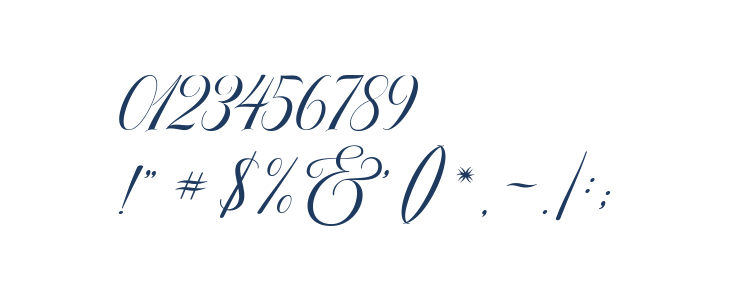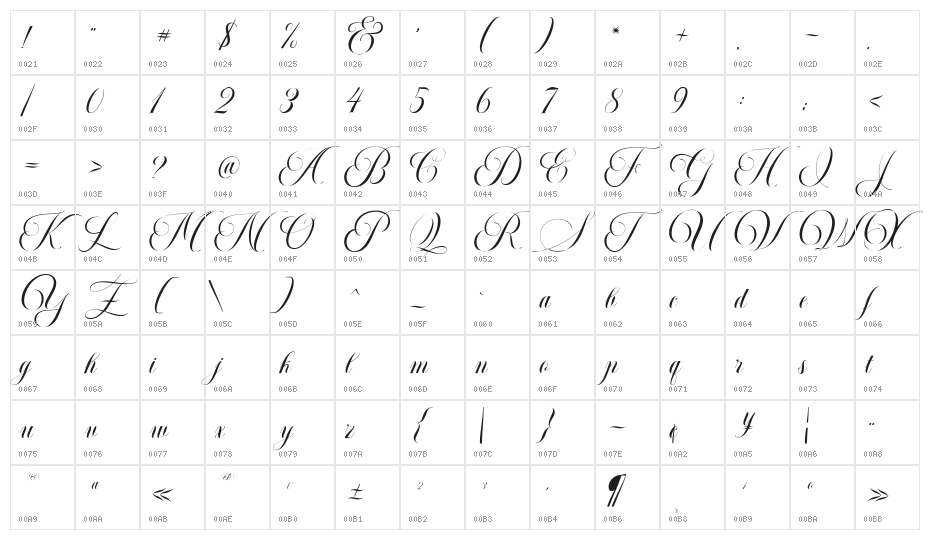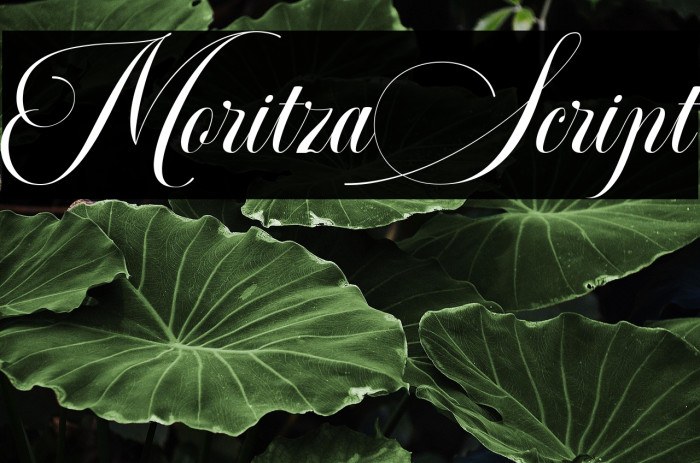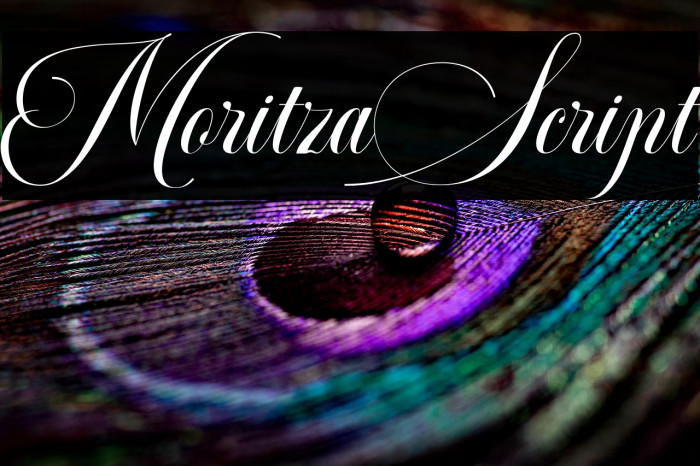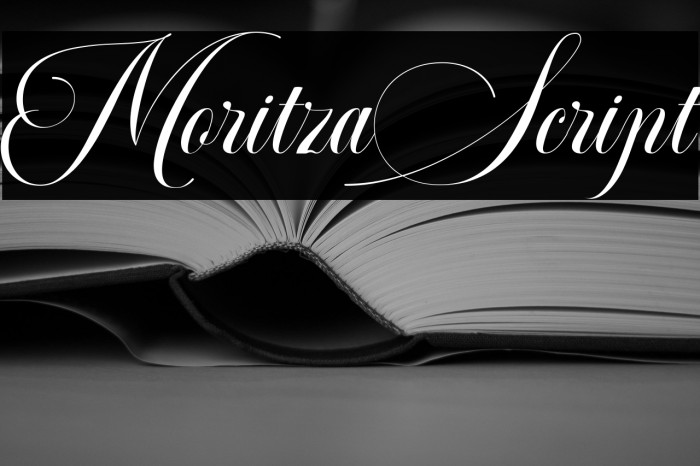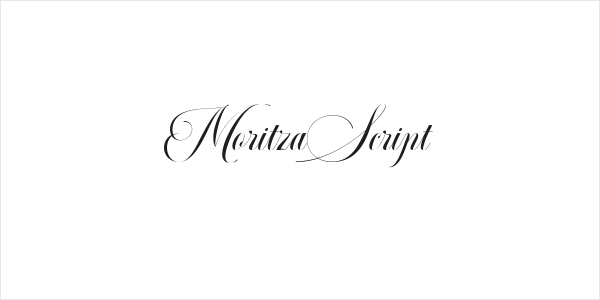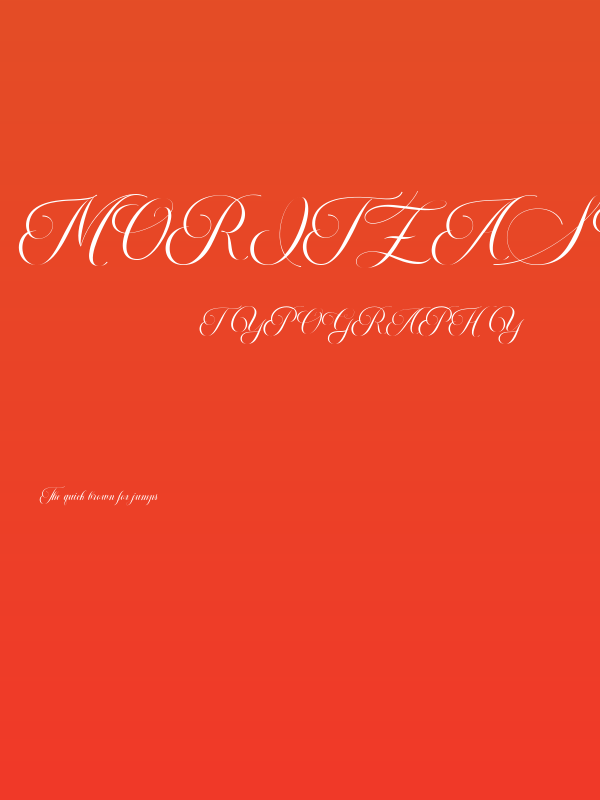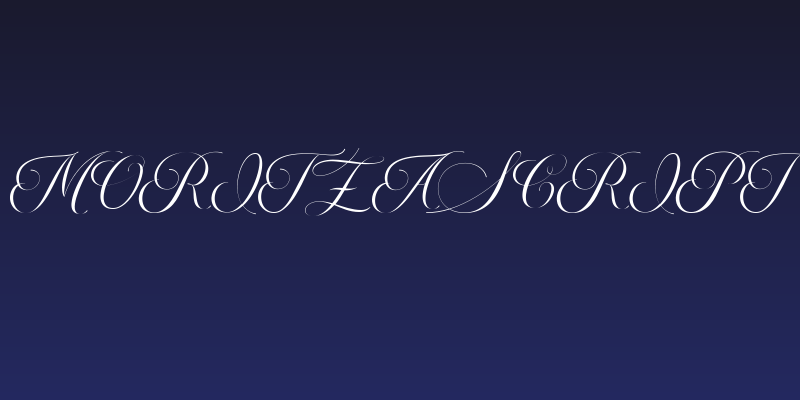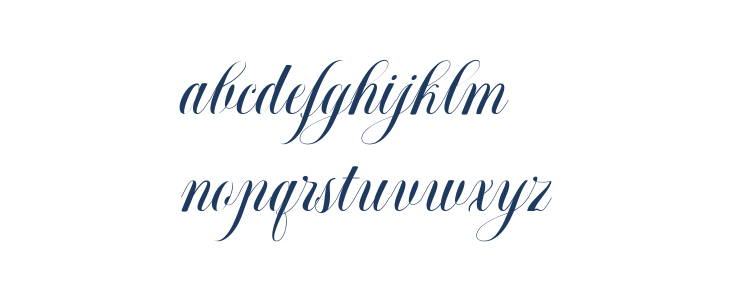
MoritzaScript Font
MoritzaScript Description
This elegant script font features a flowing, cursive style with intricate loops and swashes that give it a sophisticated and graceful appearance. The uppercase letters are particularly ornate, with elaborate flourishes that extend beyond the baseline, while the lowercase letters maintain a more restrained yet still decorative form. The numerals are stylishly curved, matching the overall aesthetic of the alphabet. This font is characterized by its high contrast between thick and thin strokes, adding to its refined and luxurious feel. The special characters are equally ornate, ensuring consistency throughout the typeface.
| Overall Style | Elegant, Decorative |
| Use Case | Logos, Invitations, Branding |
| Proposed Projects | Ideal for wedding invitations, luxury branding, elegant packaging, and high-end editorial design. |